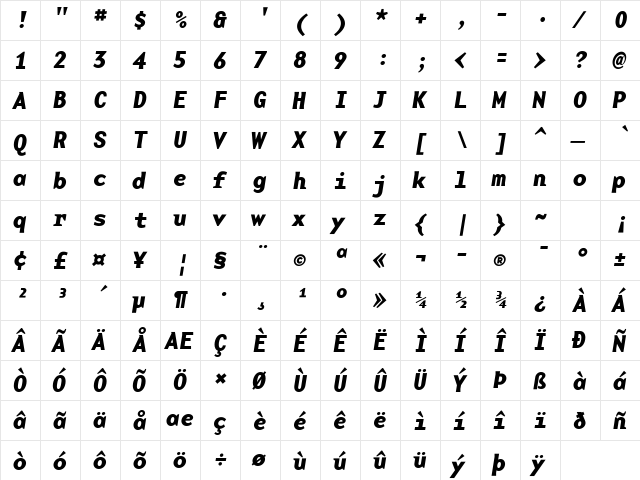
BaseMonoWide BoldItalic Font Preview
Design Context for BaseMonoWide Typeface
BaseMonoWide uses fixed-width spacing throughout, giving it the structured, systematic character associated with coding environments and technical documentation. The dynamic lean of this cut emphasises speed and emphasis in any layout. The heavy weight commands attention and anchors typographic hierarchies.